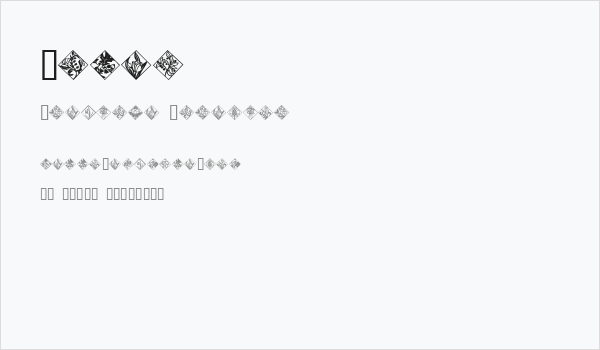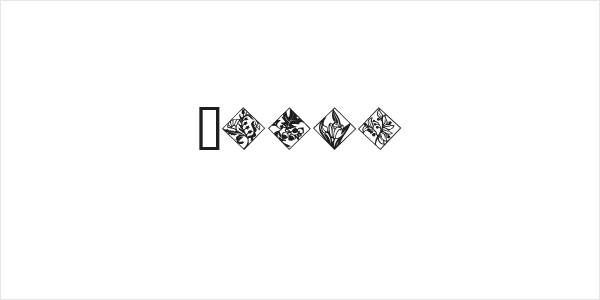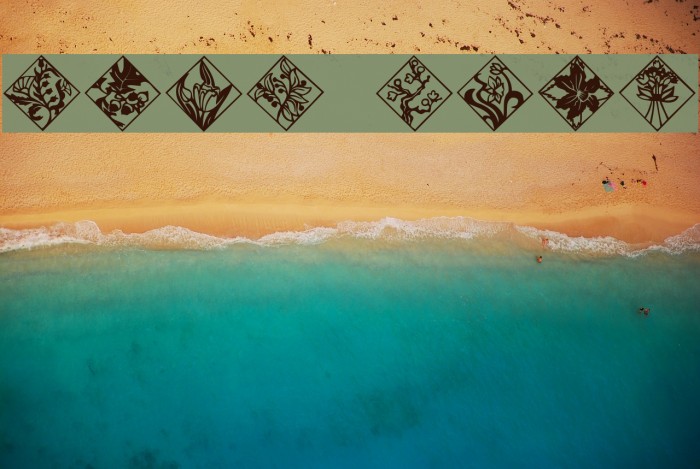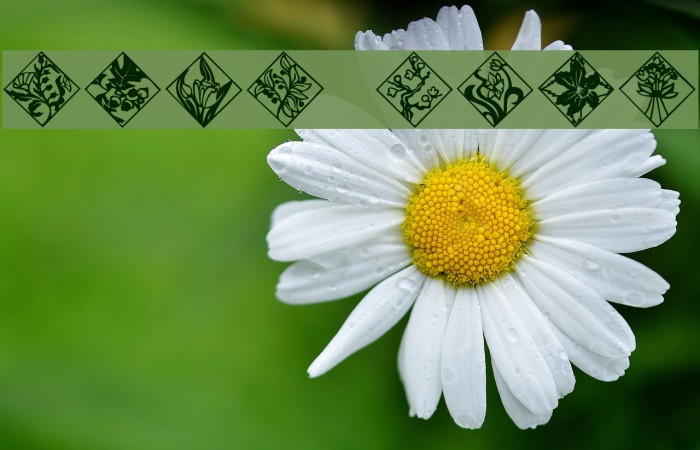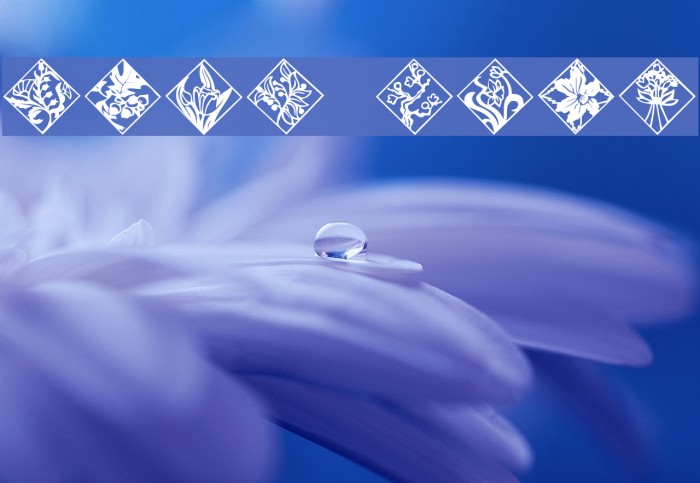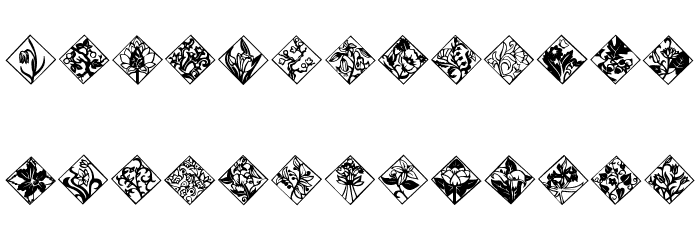
Tiles Font
Tiles Description
This is not a standard font; instead, it features decorative tile-like symbols with intricate floral and ornamental designs inside diamond shapes. The characters do not correspond to typical alphanumeric glyphs and are instead ornamental graphics.
| Overall Style | Decorative, Ornamental, Artistic |
| Use Case | Decorative elements, Borders, Artistic accents |
| Proposed Projects | Decorative borders, invitations, pattern design, ornamental dividers, artistic projects. |